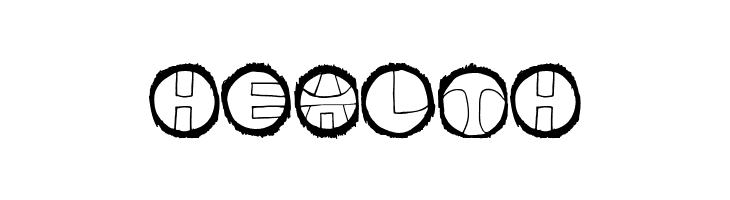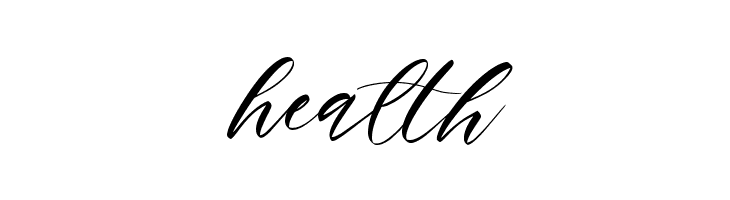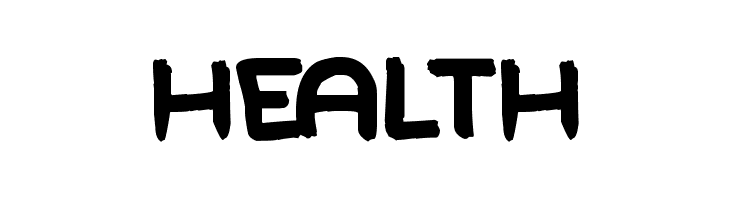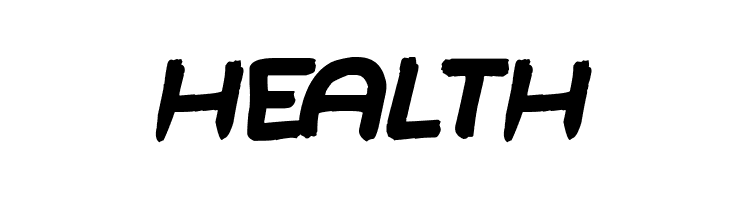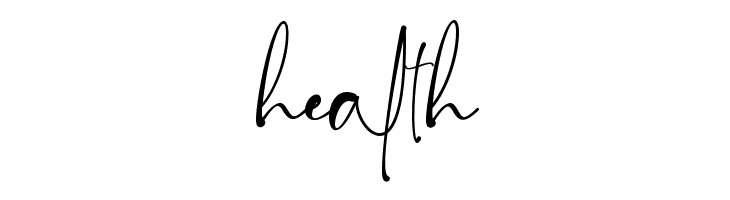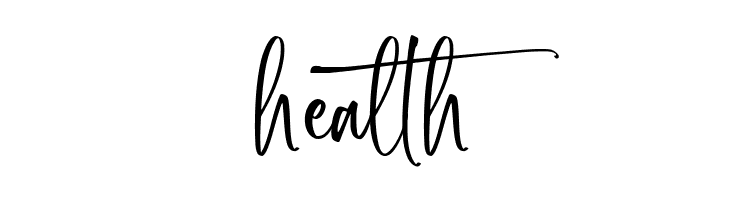
A lively, cursive font with elegant, flowing letters and a dynamic style.
A graceful and elegant script font with flowing cursive letters and intricate swashes.
A playful, hand-drawn font with letters in circular shapes, perfect for creative projects.
A modern, flowing cursive font with elegant and smooth letterforms.
A bold, expressive script font with dynamic curves and artistic flair.
A dynamic handwritten font with fluid, expressive letterforms and elegant contrast.
A bold, cursive font with elegant, flowing lines and a modern aesthetic.
A bold, brush-style font with a rough, artistic texture.
A bold, italic brush-style font with a rough, hand-drawn appearance.
An elegant, cursive font with fluid strokes and a sophisticated style.